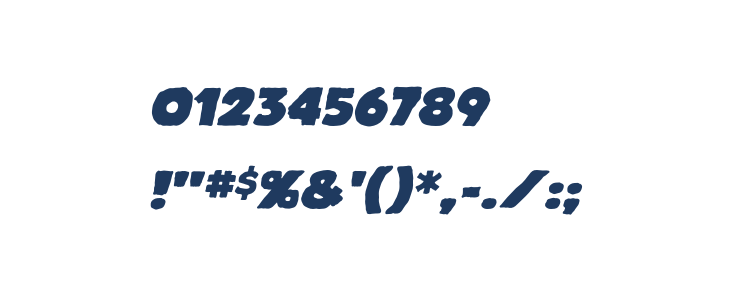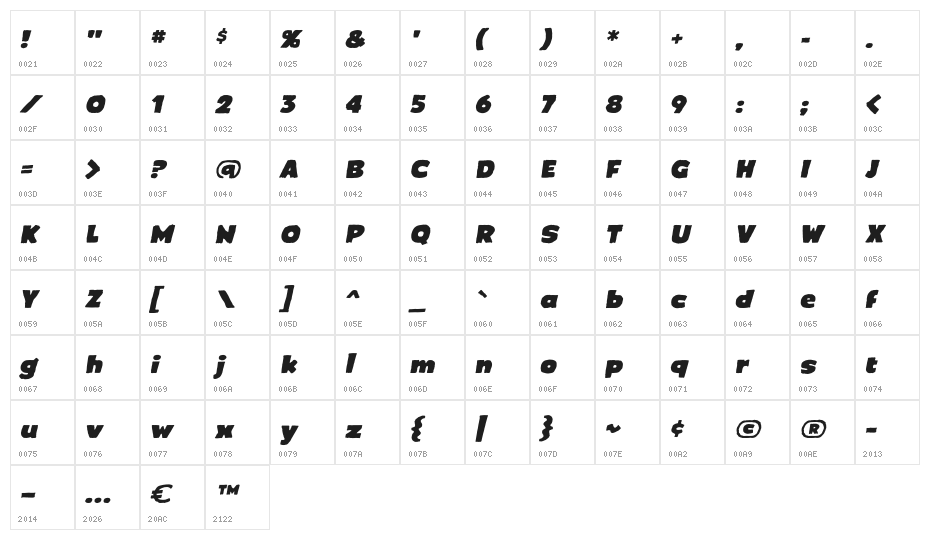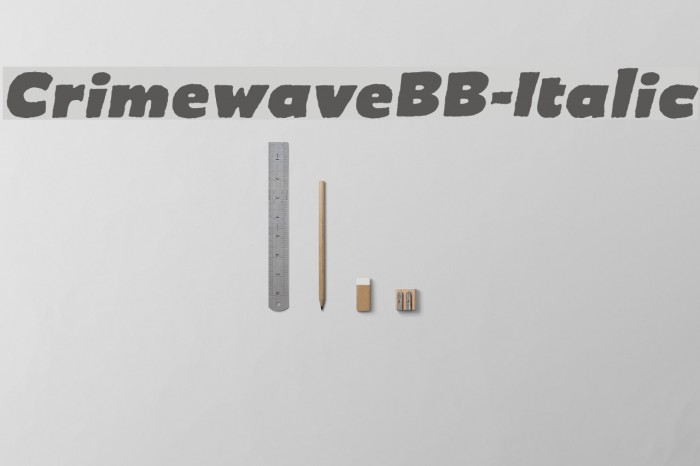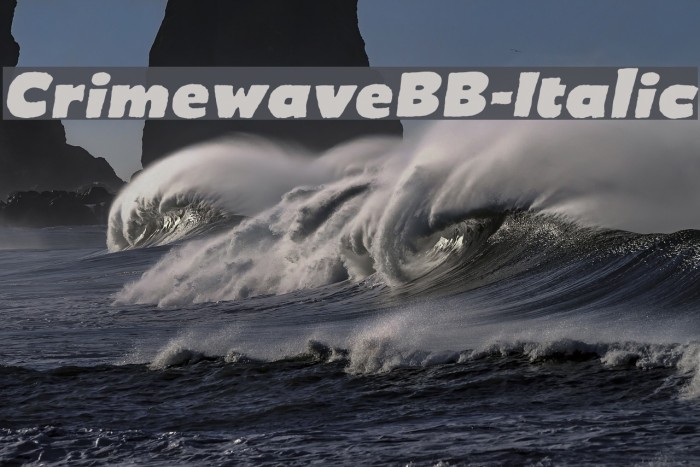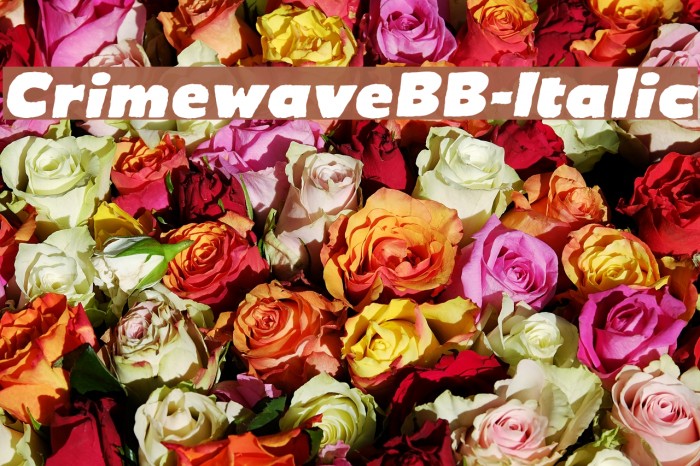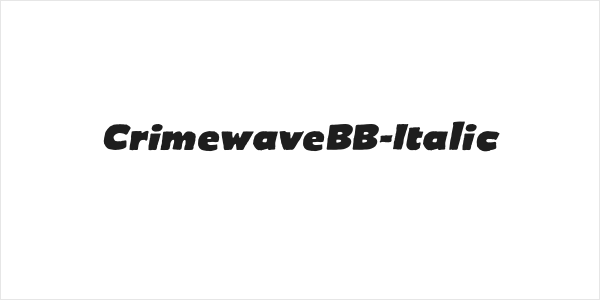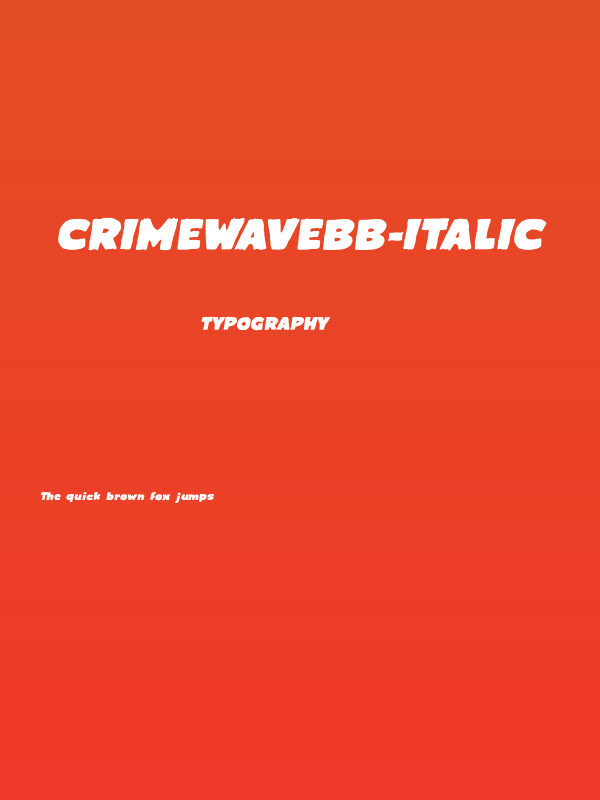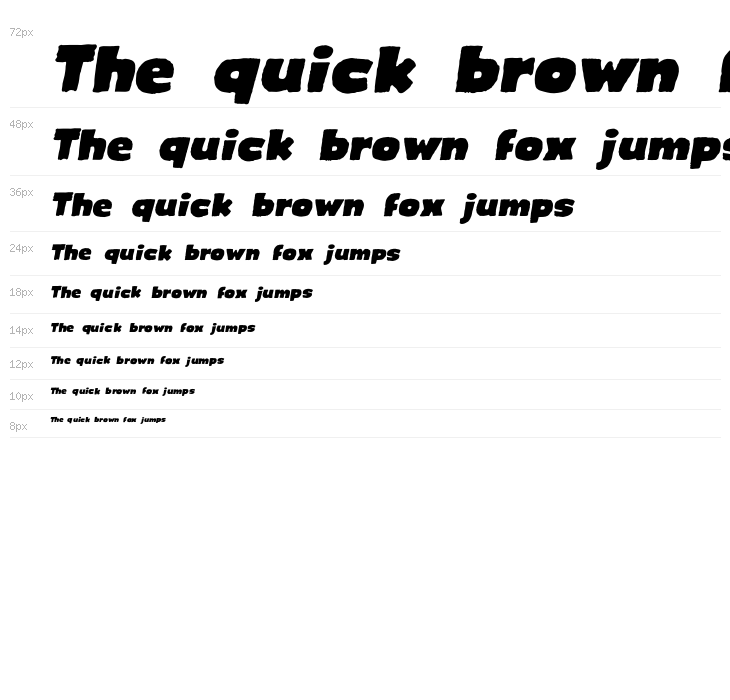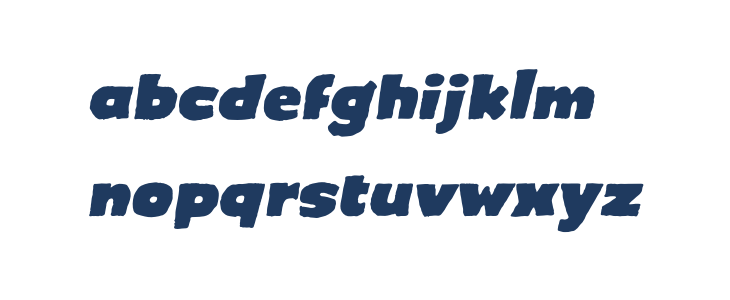
CrimewaveBB-Italic Font
CrimewaveBB-Italic Description
This font features a bold and dynamic style with a distinct italic slant, giving it a sense of movement and energy. The characters are thick and robust, with a slightly rough texture that adds a gritty, urban feel. The uppercase and lowercase letters maintain a consistent weight, while the numbers and special characters complement the overall aesthetic. The font's boldness and unique style make it stand out, making it suitable for attention-grabbing designs.
| Overall Style | Modern, Urban |
| Proposed Projects | Ideal for posters, album covers, video game graphics, and branding that requires a bold, edgy look. |